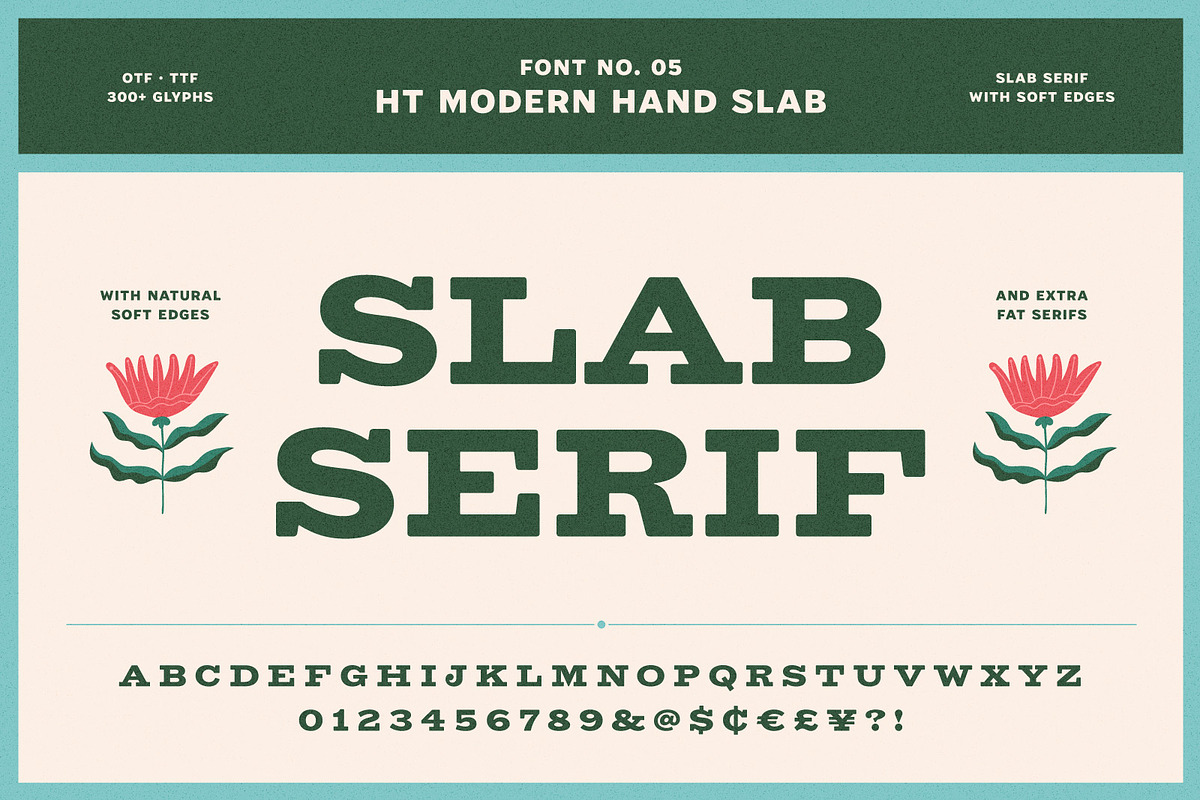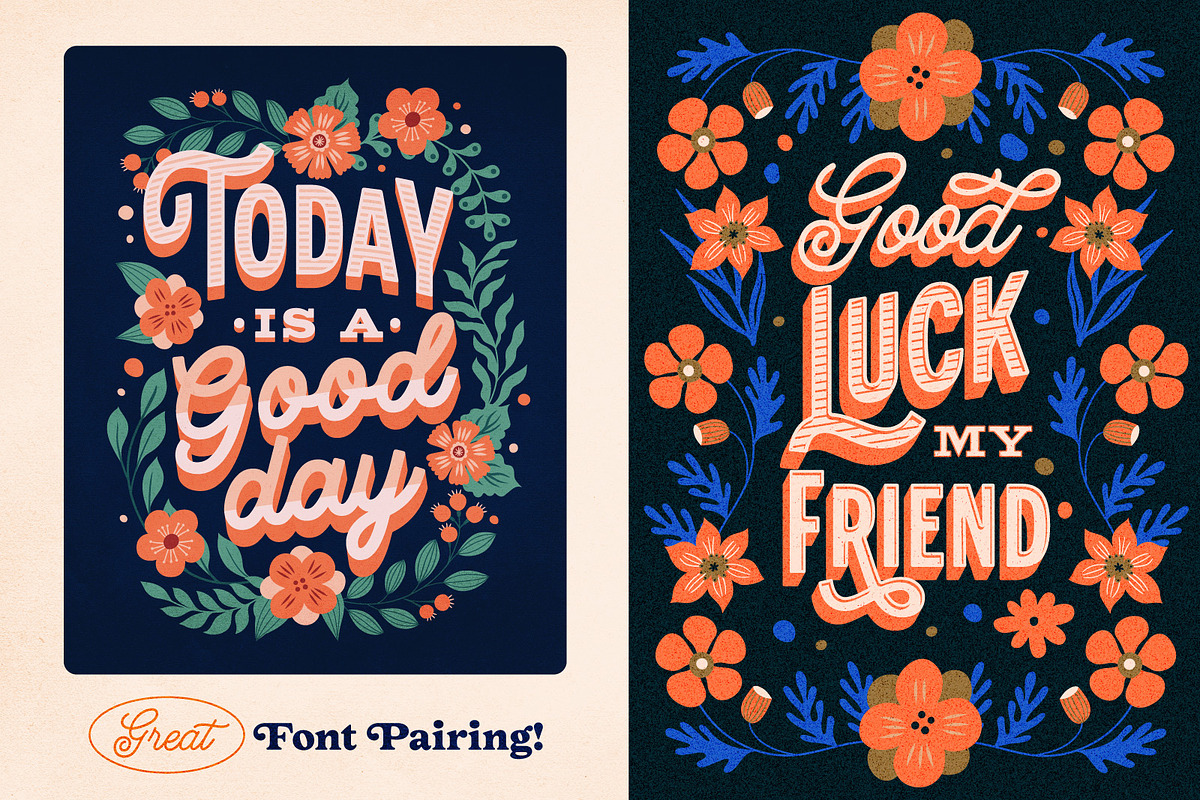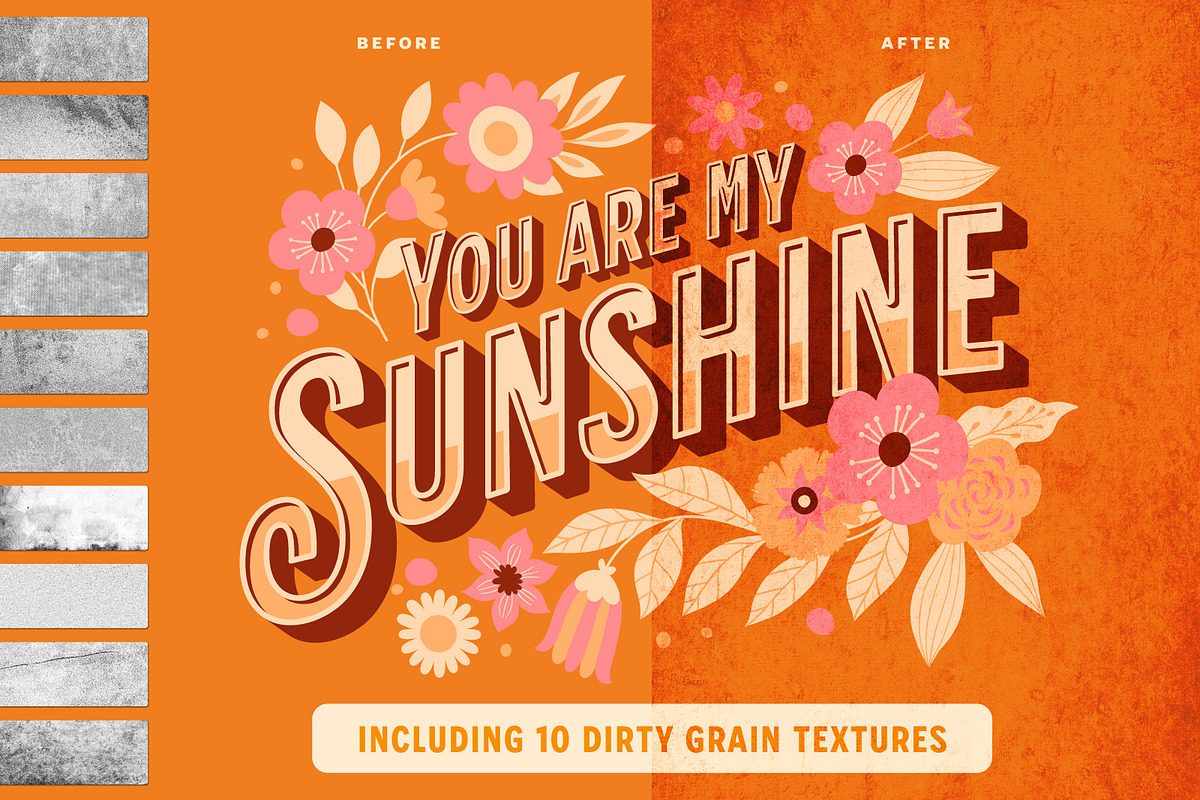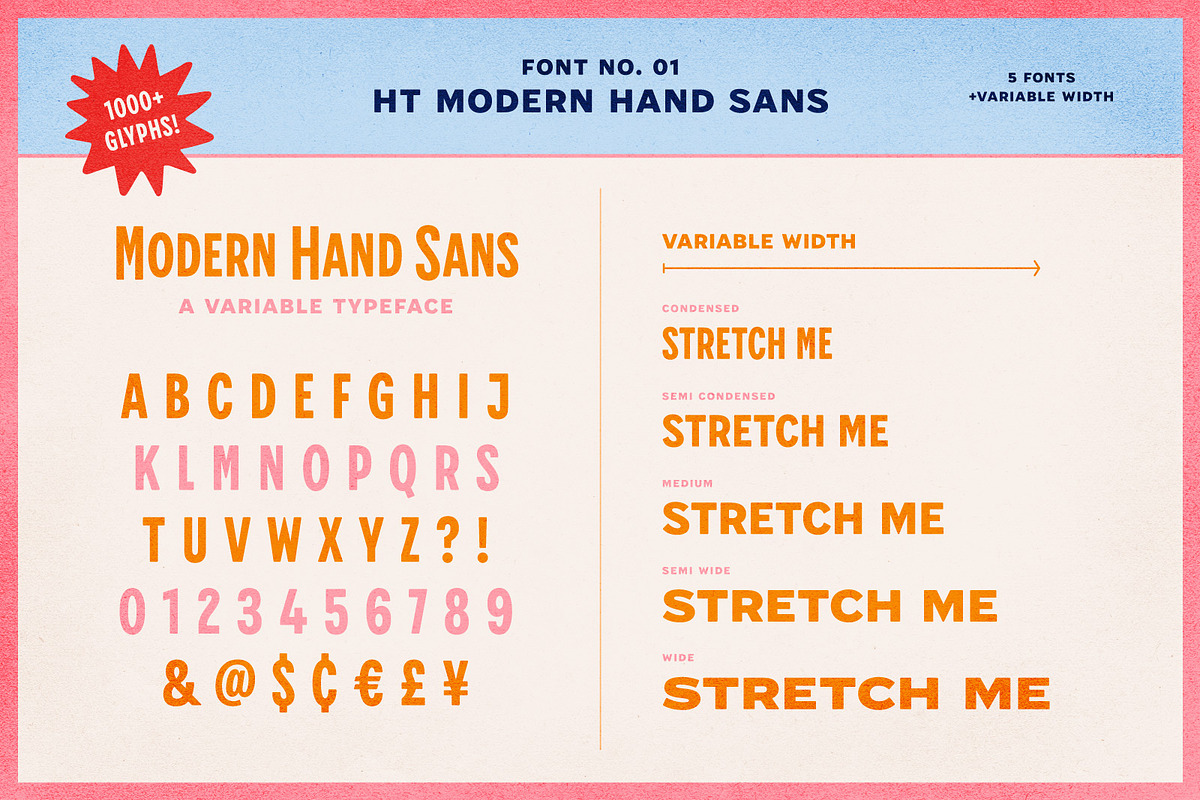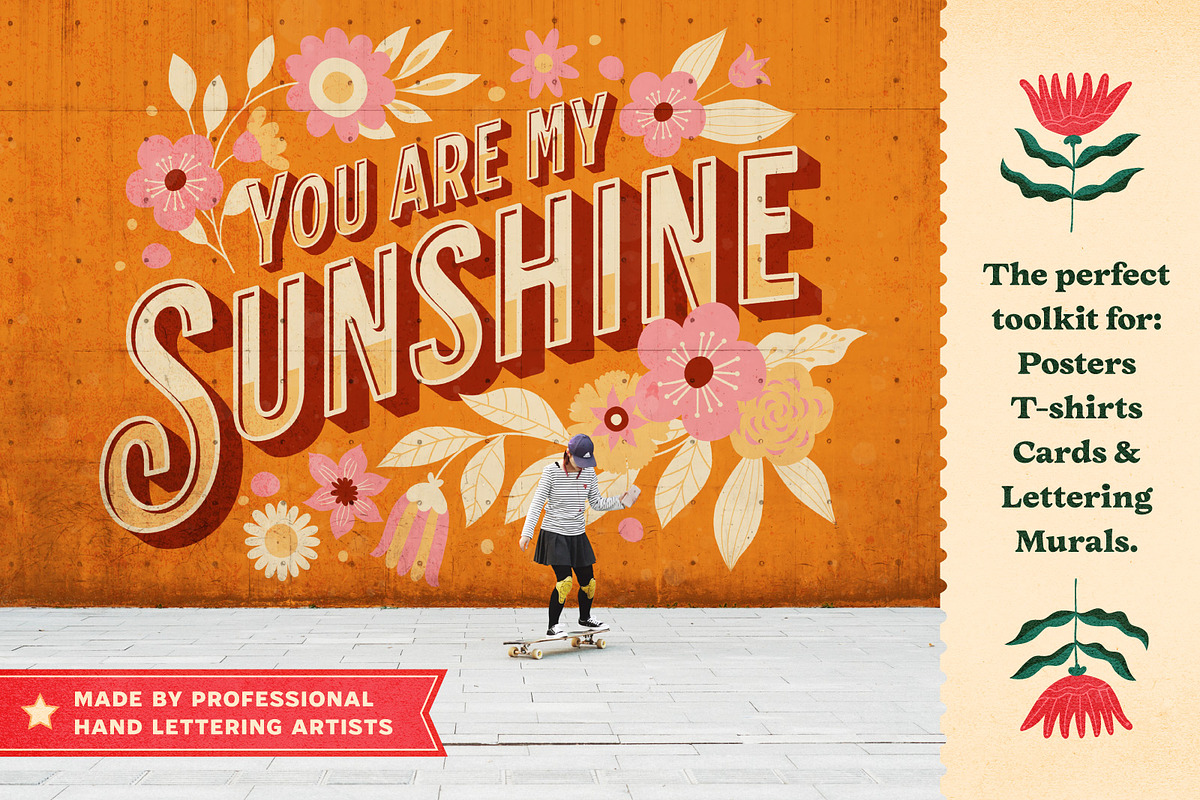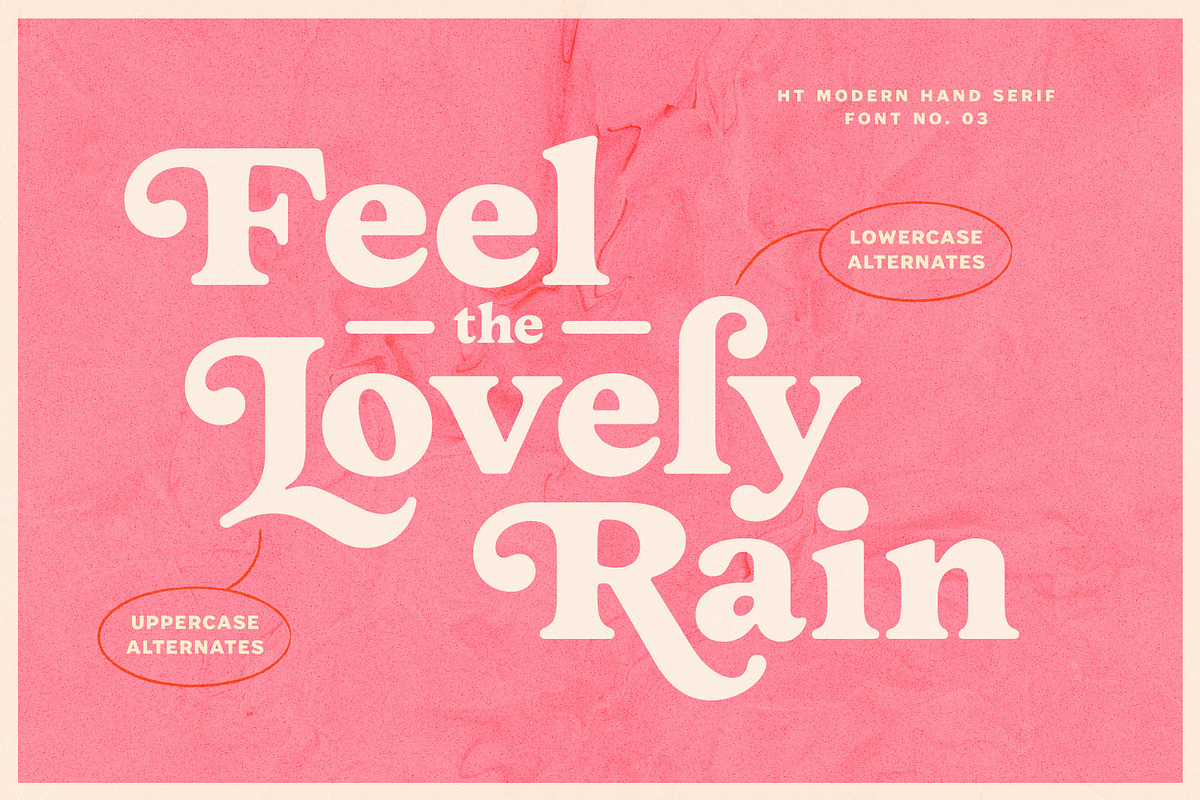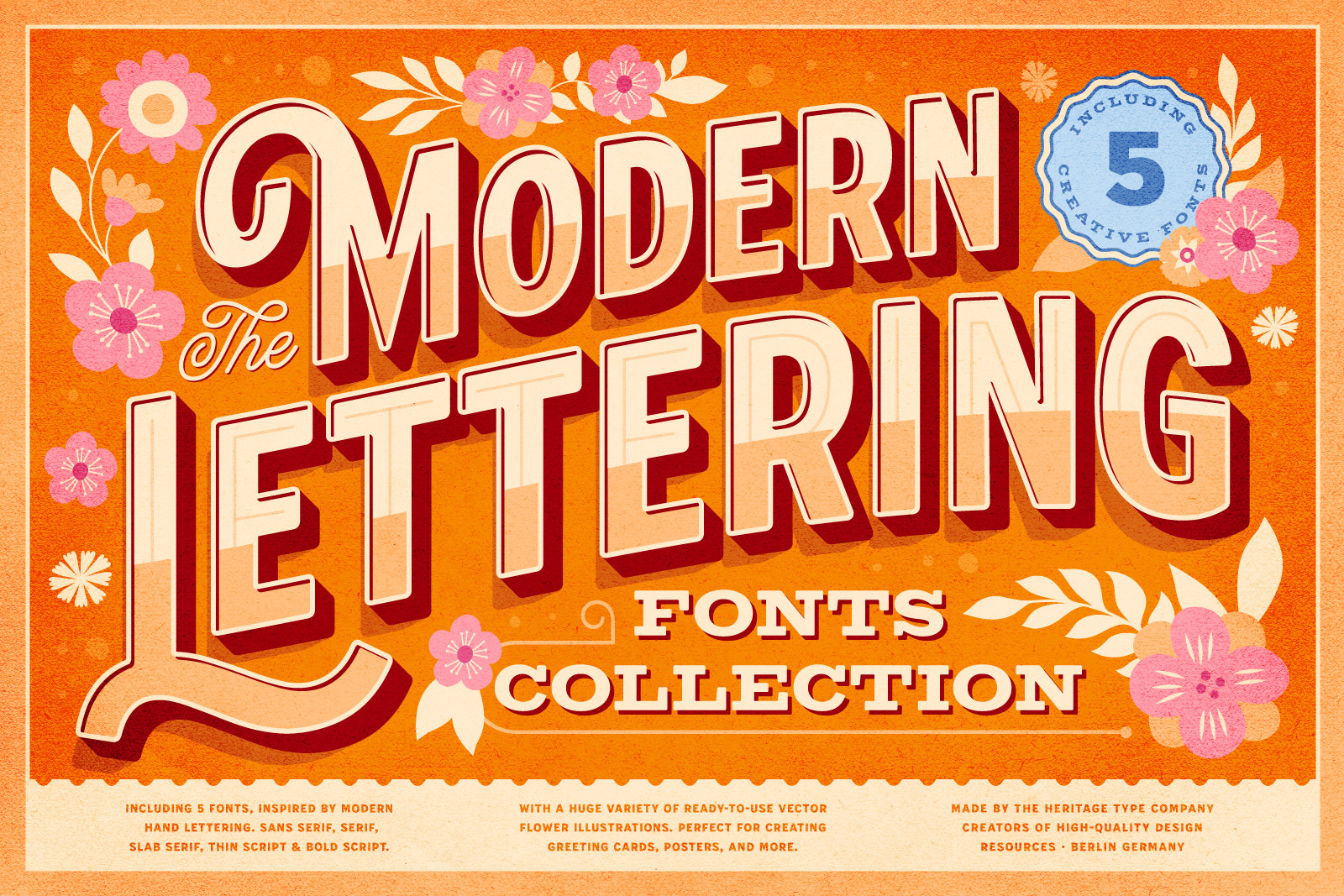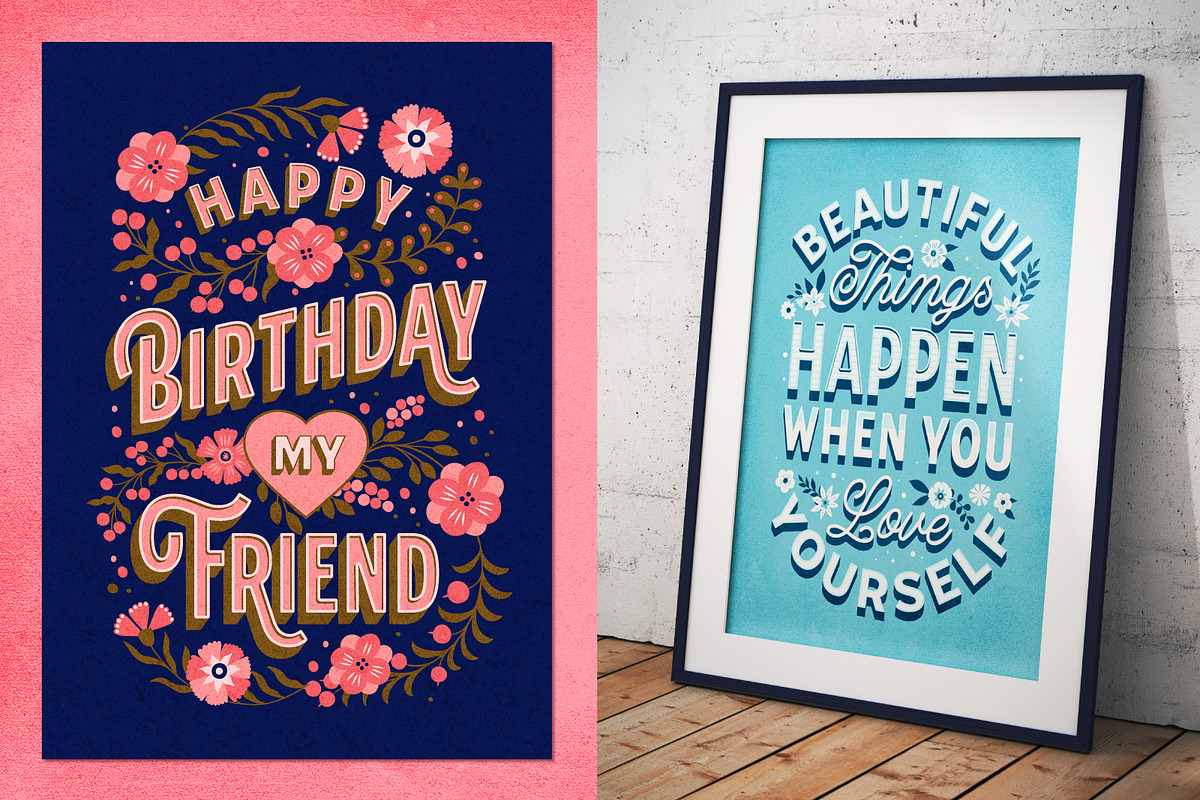
Modern Lettering Fonts Collection
The Modern Lettering Fonts Collection contains a set of 5 fonts and over 100 floral illustrations, made by professional hand-lettering artists. It is the perfect toolkit to create stunning layouts with a modern lettering appeal. All fonts are designed to imitate hand-drawn type, using soft edges and a wide range of alternate glyphs.
But that's not all! To round up the pack, we included spot elements, grainy dirt textures, and 3 ready-to-use text styles for Adobe Illustrator. This will give you endless design possibilities and speed up your workflow for any kind of project such as poster design, card design, packaging design, logos, and much more.
- Latin extended
- Alternate Characters and Ligatures